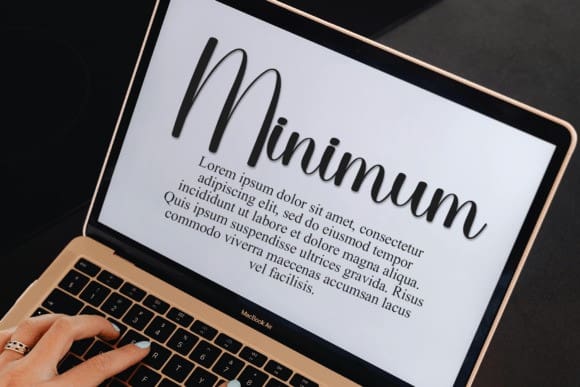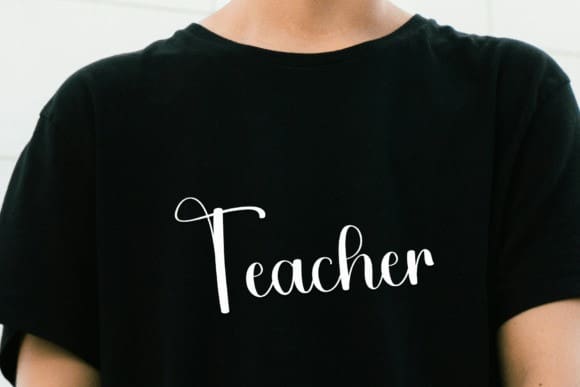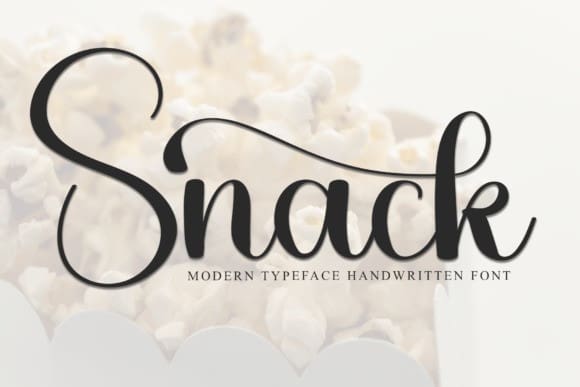
Snack Font
Snack Font is a fun and playful script font. It has smooth, flowing letters that look like handwriting. Perfect for cheerful designs like invitations, logos, or greeting cards!